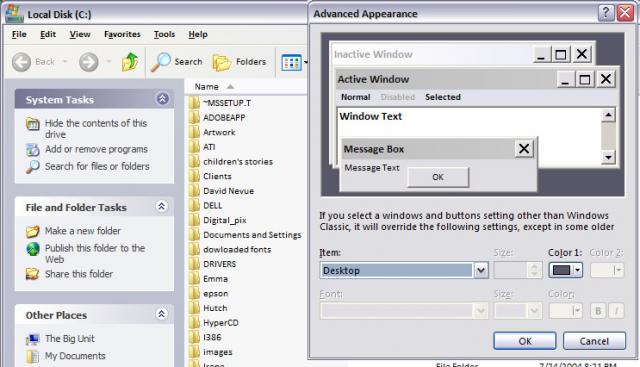
I'm brand new to this forum, so please bear with me. After quite a bit of on-line research, I discovered that it is possible to change the default system faults in xp by entering new values for "MS Shell Dlg" and "MS Shell Dlg2" in the registry editor. (HKEY_LOCAL_MACHINES\Software\Microsoft\Windows NT\CurrentVersion\FontSubstitutes).
I changed "Microsoft Sans Serif" to "Calibri" for "MS Shell Dlg" value, and "Tahoma" to "Segoe UI" for "MS Shell Dlg2". Well, the Calibri one worked great...everywhere I used to see the dreaded Microsoft sans is now cool, clean, Calibri. However, Segoe UI barely shows up anywhere in the system. Tahoma still seems to be everywhere, including the "system tasks, file and folder tasks," etc. Segoe UI only shows up in a few drop-down menus (like in the "appearances" dialog box) and the occasional (seemingly random) menu tab.
Is there some other place that needs to be changed to give Tahoma the burial it so richly deserves? You can't delete it from the fonts folder (I made a back-up copy and tried- nothing doing). Maybe I'm obsessing too much, but I really don't like Tahoma! :wacko:
have you tried overwriting the tahoma font with a calibri one renamed to 'tahoma' (you may need to edit the actual font to change the name)?
Would that work? Would I just create a copy of the calibri font (or whatever I want to replace tahoma with) and rename it? Also, if I put it in the fonts folder, there's already a "tahoma" in there and I can't remove it.
Ihave attached a screen shot showing the mix of fonts. Notice Tahoma still showing up on the left-hand links menu. The other image shows the advanced appearance window...notice that Segoe UI shows up here.
I create a reg file to change my default font to Segoe UI (size 8) everywhere on XP ... But something I don't get it it's not here (HKEY_LOCAL_MACHINES\Software\Microsoft\Windows NT\CurrentVersion\FontSubstitutes)
That you can modify the default font ... cos with my reg file I modify [HKEY_CURRENT_USER\Control Panel\Desktop\WindowMetrics] and change the code for :
"CaptionFont"
"IconFont"
"MenuFont"
"MessageFont"
"SmCaptionFont"
"StatusFont"
That's nice to know, but I know nothing about changing code...it took a bit of investigation just to find the "easy" registry hacks. The ones in "FontSubstitutes" simply consisted of typing in the font name, there was no code involved.
Me again...I took a look at the font codes in the registry under "WindowMetrics". I was at least able to tell which ones were still Tahoma. It looks like "SmCaptionFont" is the only one. Would that possibly explain all the instances of Tahoma still on my system? However, I'd still be uncomfortable changing the code. Any advice?
The settings in 'advanced appearance' overwrite the registry values. You must change all fonts in 'a a' also.
Yes, I am a aware of the advanced appearance settings...I changed those long ago. It was only after that when I noticed Tahoma was still present. I changed every possible font in advanced appearance, plus the fonts in MS Shell Dlg & MS Shell Dlg2. Tahoma is still everywhere (see screen shot above). So obviously there is still some hidden location that insists on Tahoma being applied to certain system windows, etc.
Dumb question: Did you reboot after changing MS Shell Dlg?
I'm also having troubles changing a font. After installing a theme the font used for directory trees and file names as well as icons on the desktop has changed to "trebuchet ms". I've the only instance where i can still find "trebuchet ms" being mentioned is the "WindowsMetric" section in the registry, and there it's found under "IconFont". Is there a way to change this font without hacking the hex code in the registry? Thx.